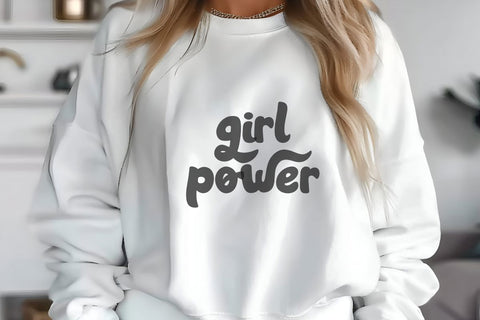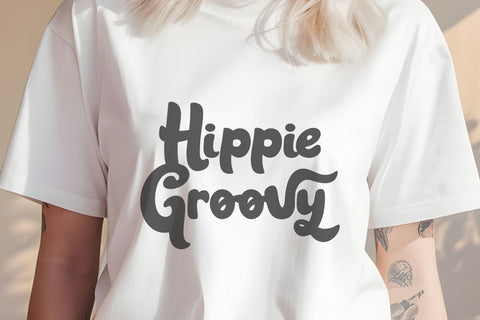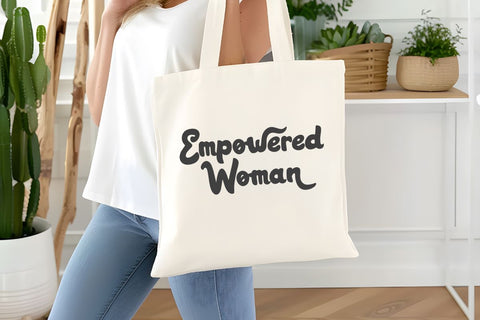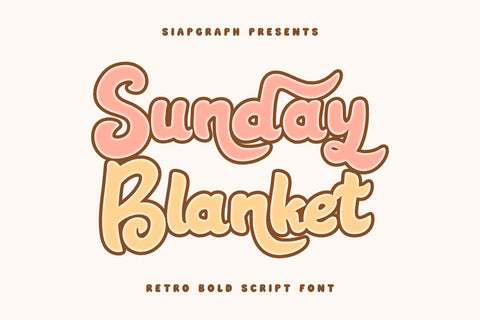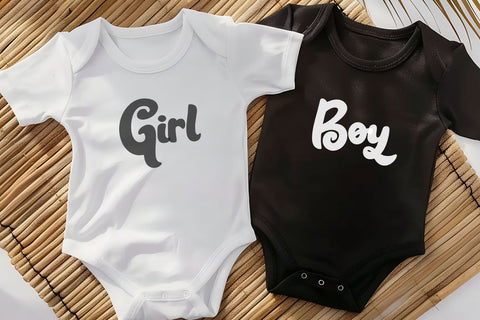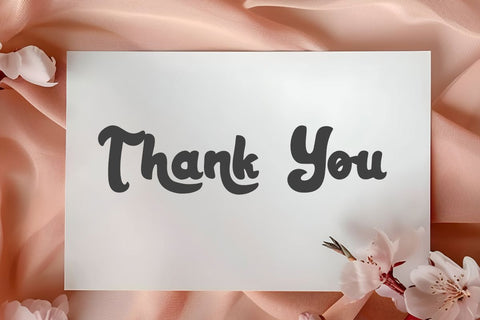
Sunday Blanket - Retro Script Font
Introducing Sunday Blanket, an exquisite fusion of bold and retro. This striking font is an ideal choice, making a statement on t-shirts or making your sublimation stand out. Let Sunday Blanket capture your creativity on a cricut, silhouette, or a tumbler. Prettify your tote bag, spruce up your wall art or stamp your identity with a logo. Arise interest with key chains and stickers or peddle finesse on embroidery and planners. Grand for digital crafts and craft branding, this versatile font is also just right for crafting cards or embellishing hoodies. Perfect for DIY enthusiasts, Sunday Blanket works great as clip art and is excellent for print-on-demand. Not only is this typeface inspiring for a plethora of creative projects, but it also adds a personal touch to occasions such as birthdays, Christmas, or weddings and seasonal celebrations like summer, spring, or Easter. From baby clothes to cupcake toppers, Sunday Blanket infuses every idea with a touch of retro whimsy. It is not just a font, it's an inspiration.